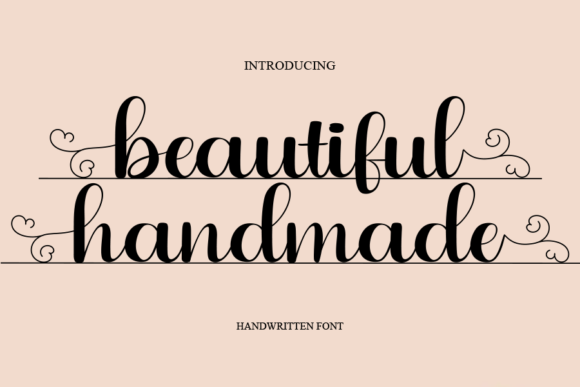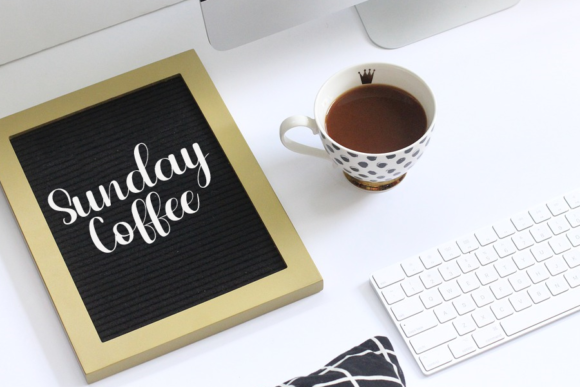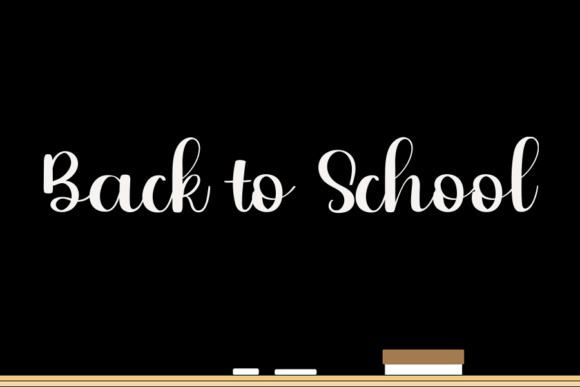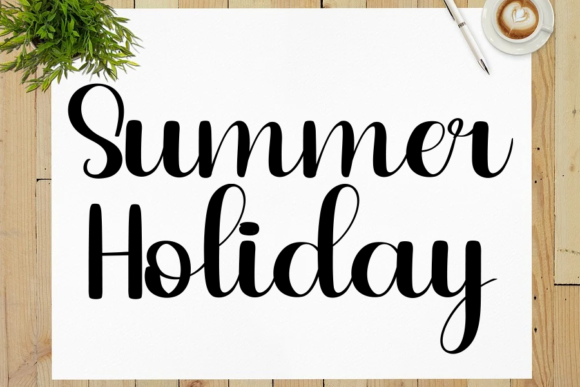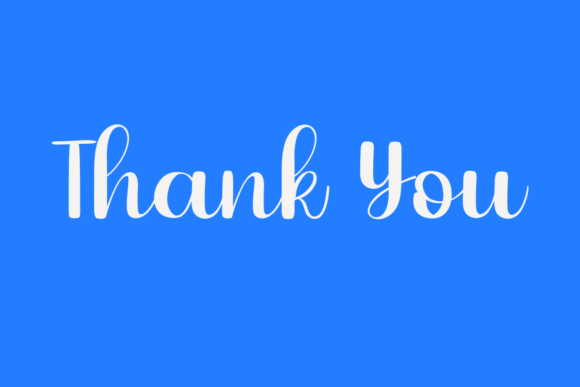
Beautiful Handmade Font
About Beautiful Handmade Font
Beautiful Handmade is an enchanting handwritten font. This versatile script font has a wide spectrum of applications ranging from greeting cards to headlines and is guaranteed to add a romantic feel to your next project.